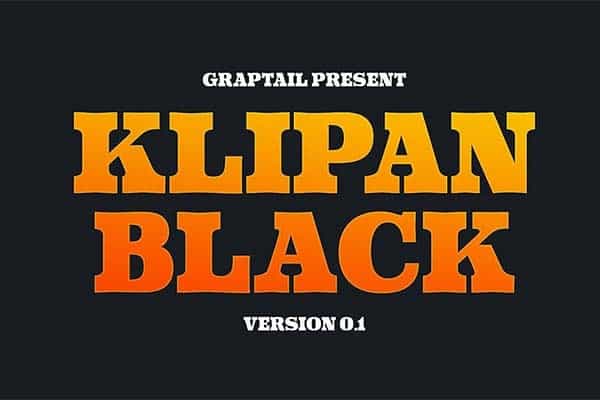
Klipan Black Font
Say Hello Guy’s . Thank you for looking Klipan Black Font. This is a dynamic and rugged vintage font inspired by western typefaces. It includes two widths of characters, paired together to create unique designs. A strong slab serif typeface inspired from cowboys and western style.
The font comes in uppercase and lowercase which you can creatively combine in your design project. It’s perfect for logotypes, badges, store front, headlines, sub headlines, and even body text. This typeface is recommended for western style, antiques, vintage vibe, and retro pop art.